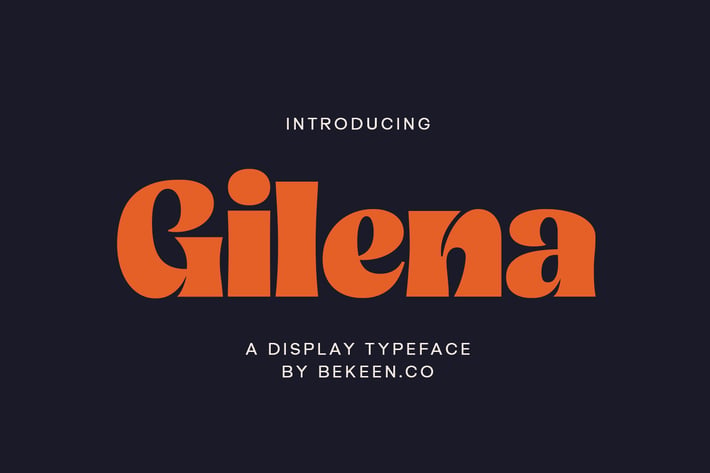
Gilena Display Font
BekeenCo
Gilena is a bold display typeface. It has retro and playful style. You can use this font for branding, graphic design editorial, etc.